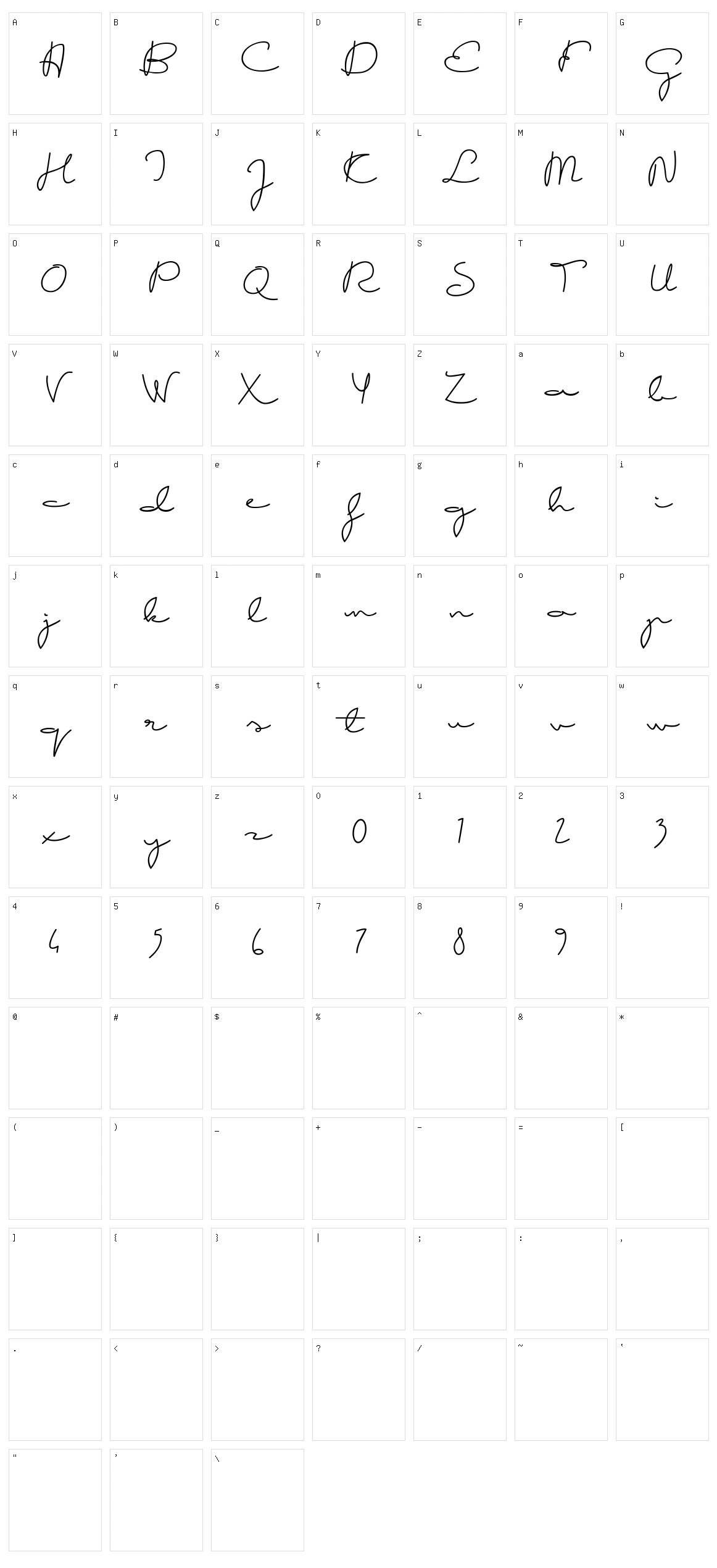
Good Karma
Designed by: Roland Huse Design
ÿþGOOD KARMA DEMO is a demo version of a cursive handwriting font. Contains only numbers 0-9 , lowercase a-z and uppercase A-Z.